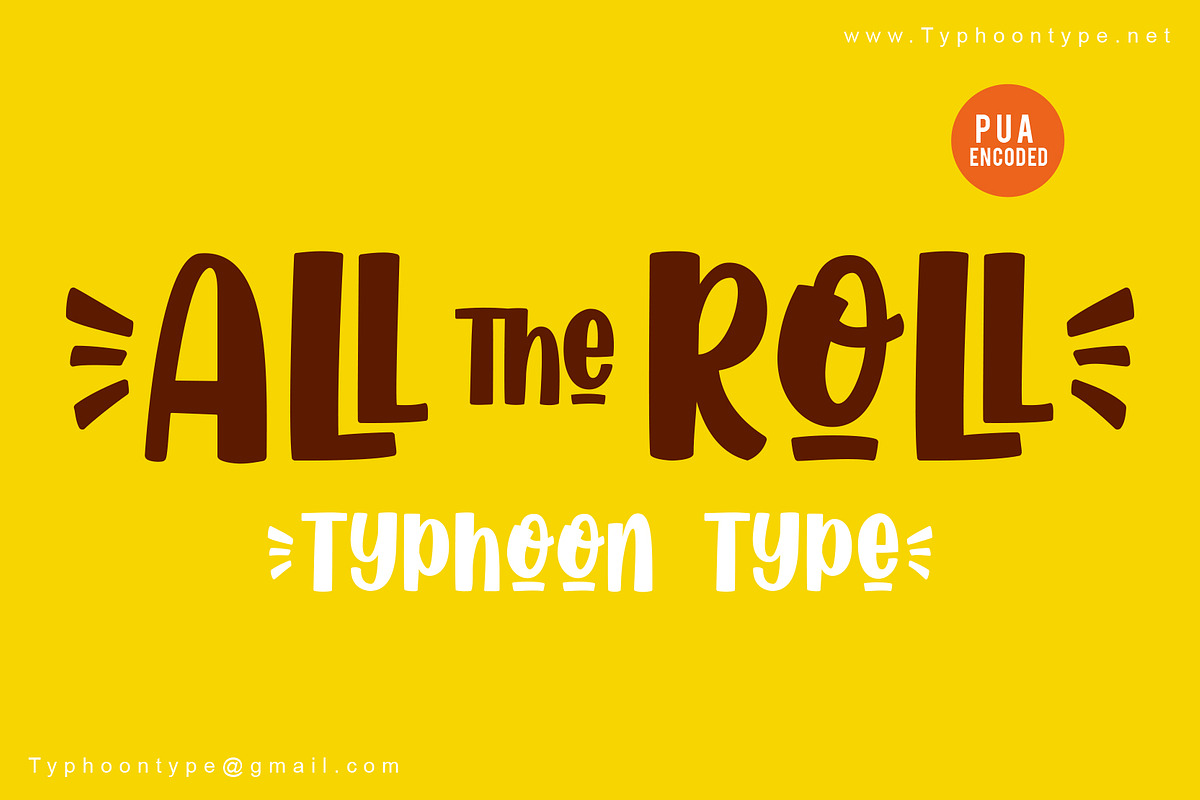
All The Roll font
All The Roll This Font perfect for logos, name tag, advertising, product packaging, clothing, social media & greeting cards.
1. Type ( before word to get beginning swash and Type ) after word to get the ending swash.
2. Type (greater sign) to get small "THE" Example : (AllRoll)
Why All The Roll font is worth a look
All The Roll font by TyphoonStudio fits naturally into Branding, posters, packaging, typography.